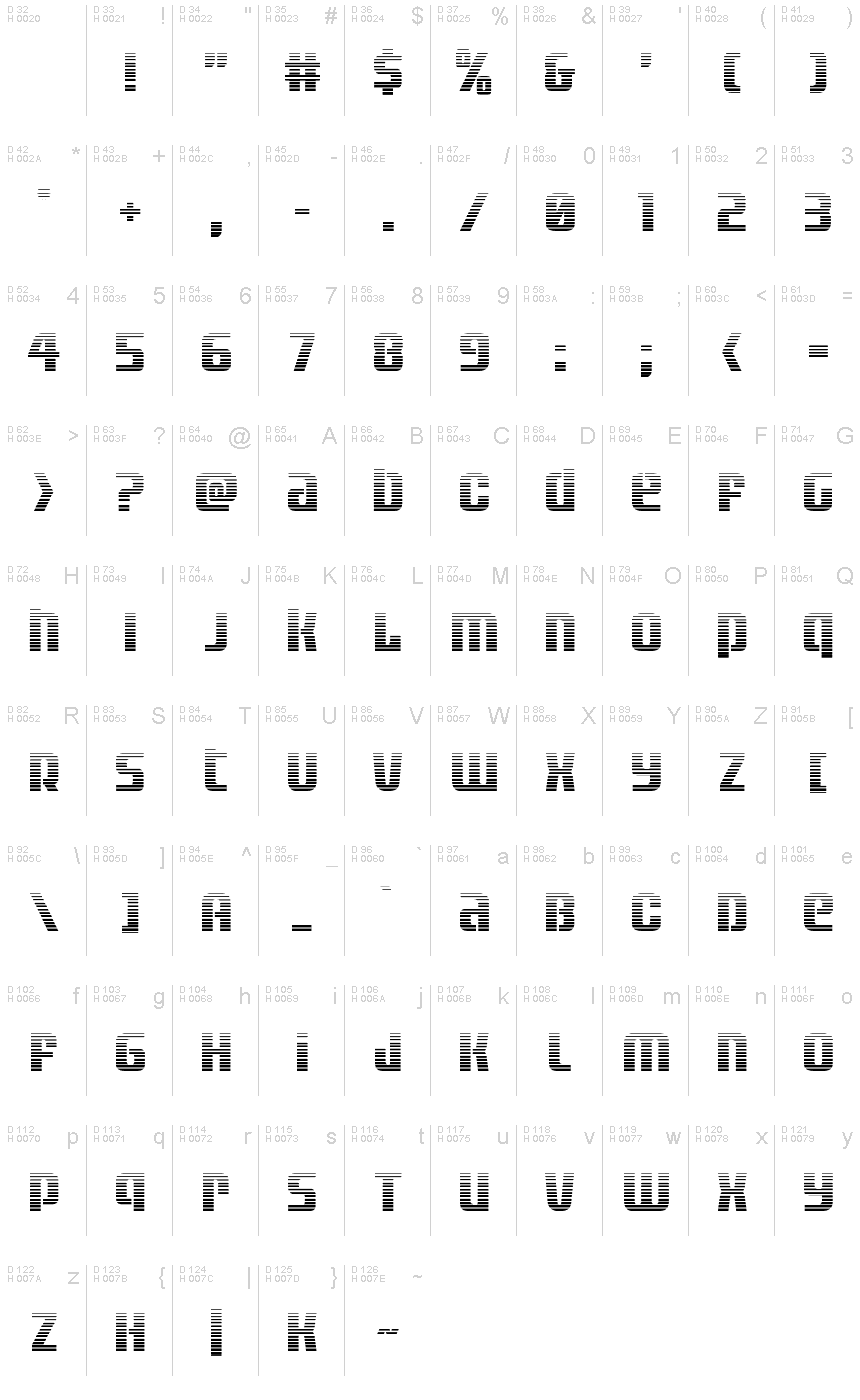
Vanguardian Gradient
Get ready to make a statement with Vanguardian Gradient font! Designed by Daniel Zadorozny, this futuristic display font is perfect for any project that requires a bold and eye-catching typeface. With its gradient effect, it adds an extra level of visual interest and depth to your designs. Use it for anything from logos and branding to posters and social media graphics. Its condensed width makes it perfect for designs where space is limited but impact is key.